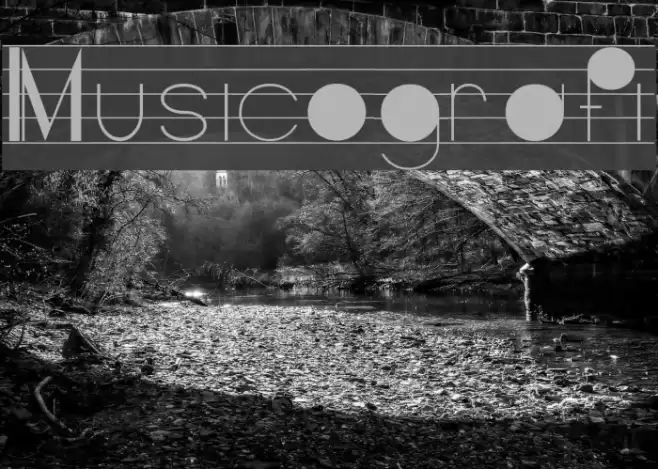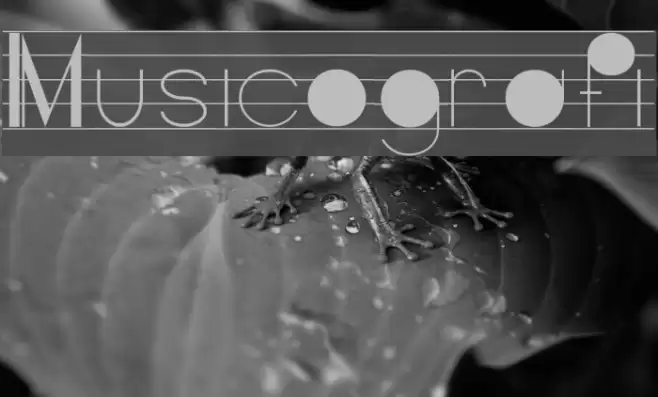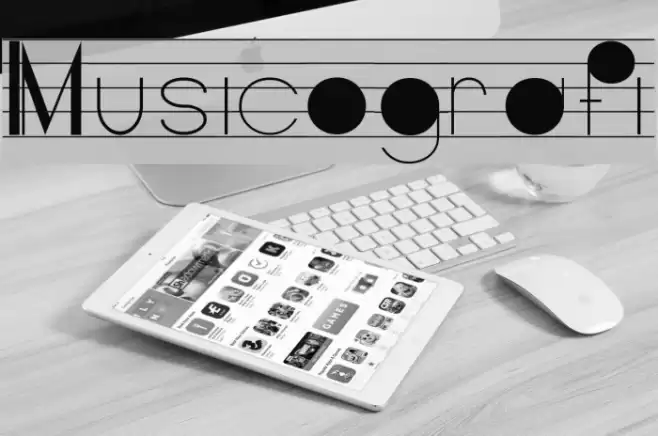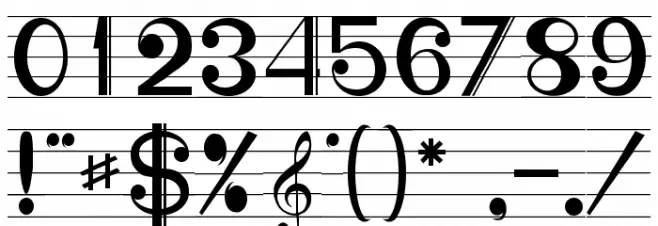
Musicografi Font
Musicografi Description
This font is a unique blend of musical elements and typography, featuring characters that incorporate musical notes and symbols into their design. The uppercase letters are bold and structured, with lines and dots reminiscent of musical staffs and notes. The lowercase letters maintain a similar theme, with some characters appearing as if they are part of a musical composition. Numbers and special characters continue this motif, integrating elements like treble clefs and note heads. The overall design is playful yet sophisticated, making it ideal for creative projects that wish to convey a musical theme.
A music-themed decorative font with elements of musical notation from Decorative fonts.
- Proposed Projects: Ideal for music event posters, album covers, educational materials for music classes, and creative branding for music-related businesses.